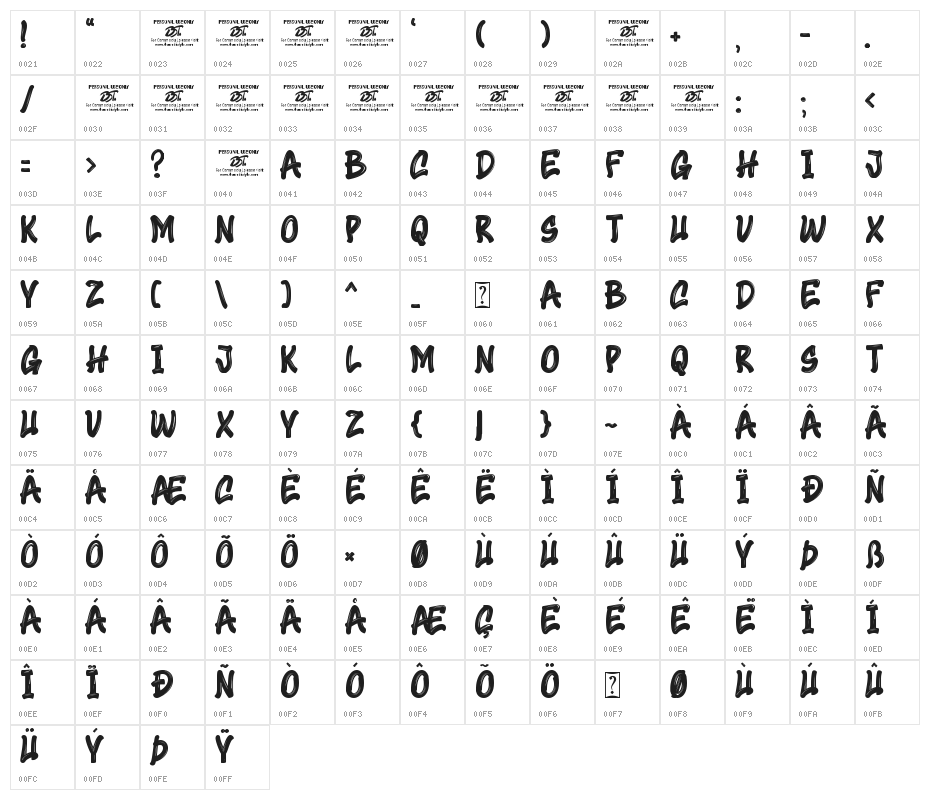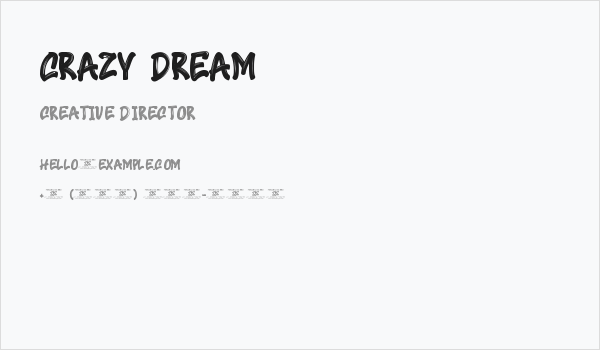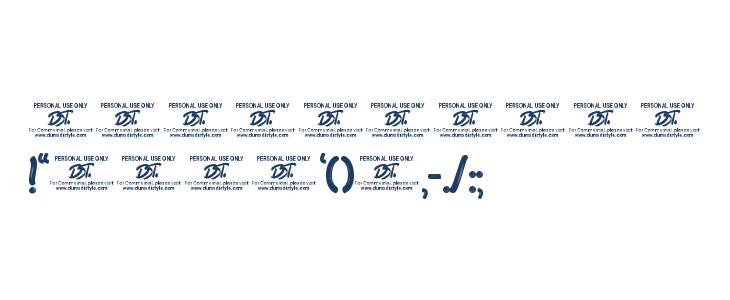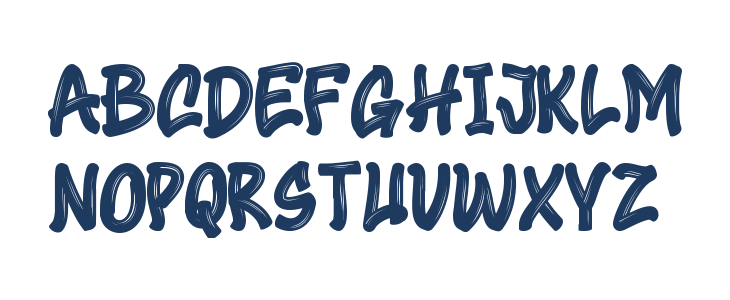
Crazy Dream Font
Crazy Dream Description
This font features a bold, energetic style with a playful and dynamic appearance. The letters are crafted with a brush-like effect, giving them a hand-drawn feel that is both casual and expressive. The strokes are thick and slightly irregular, adding to the font's lively character. The uppercase and lowercase letters maintain a consistent style, with a slight slant that enhances the sense of movement. The numbers and special characters are equally bold and maintain the same playful aesthetic. This font is perfect for projects that require a fun and informal touch.
| Overall Style | Playful, Energetic, Hand-drawn |
| Proposed Projects | Ideal for posters, greeting cards, children's books, and playful branding. |